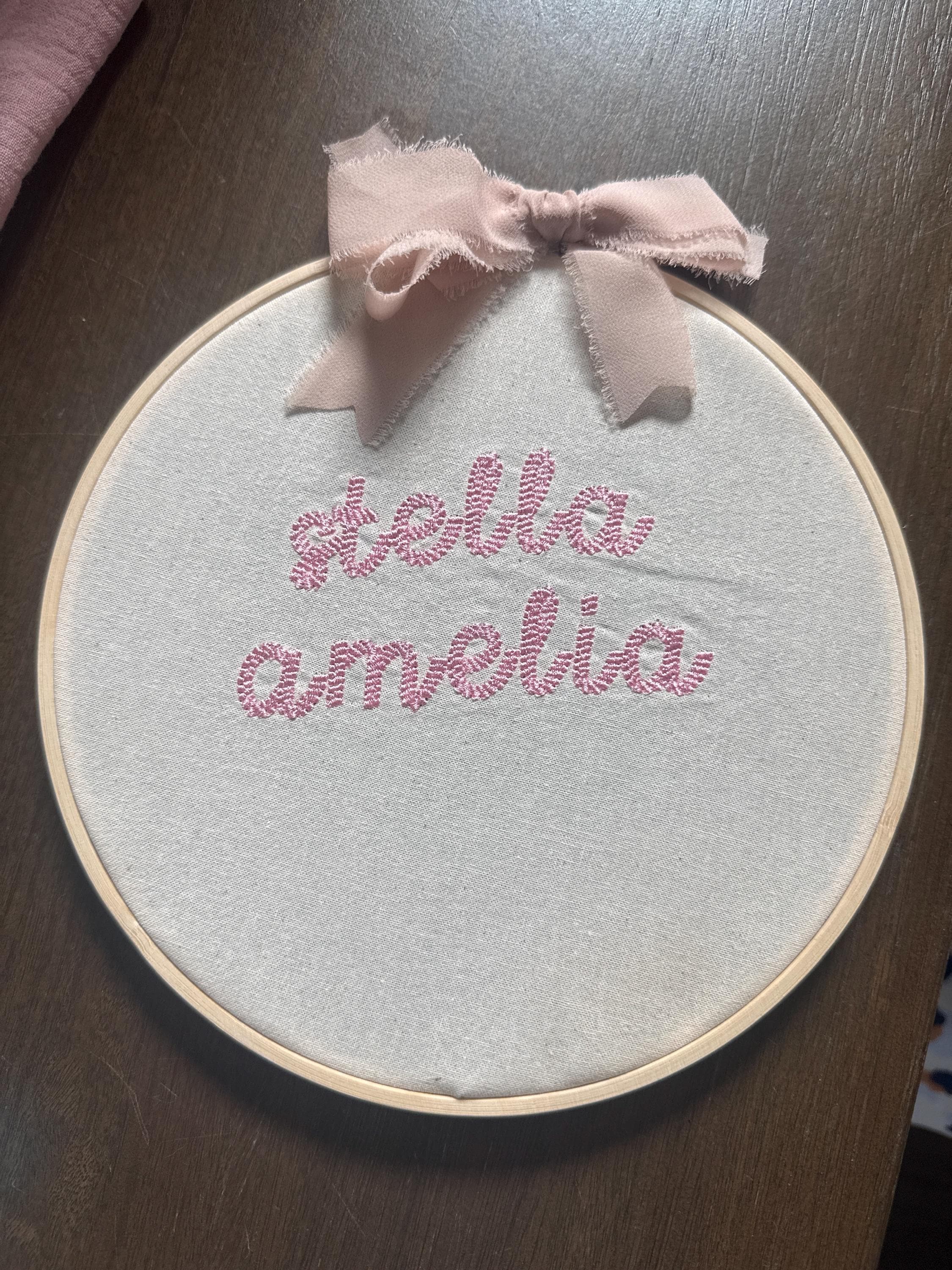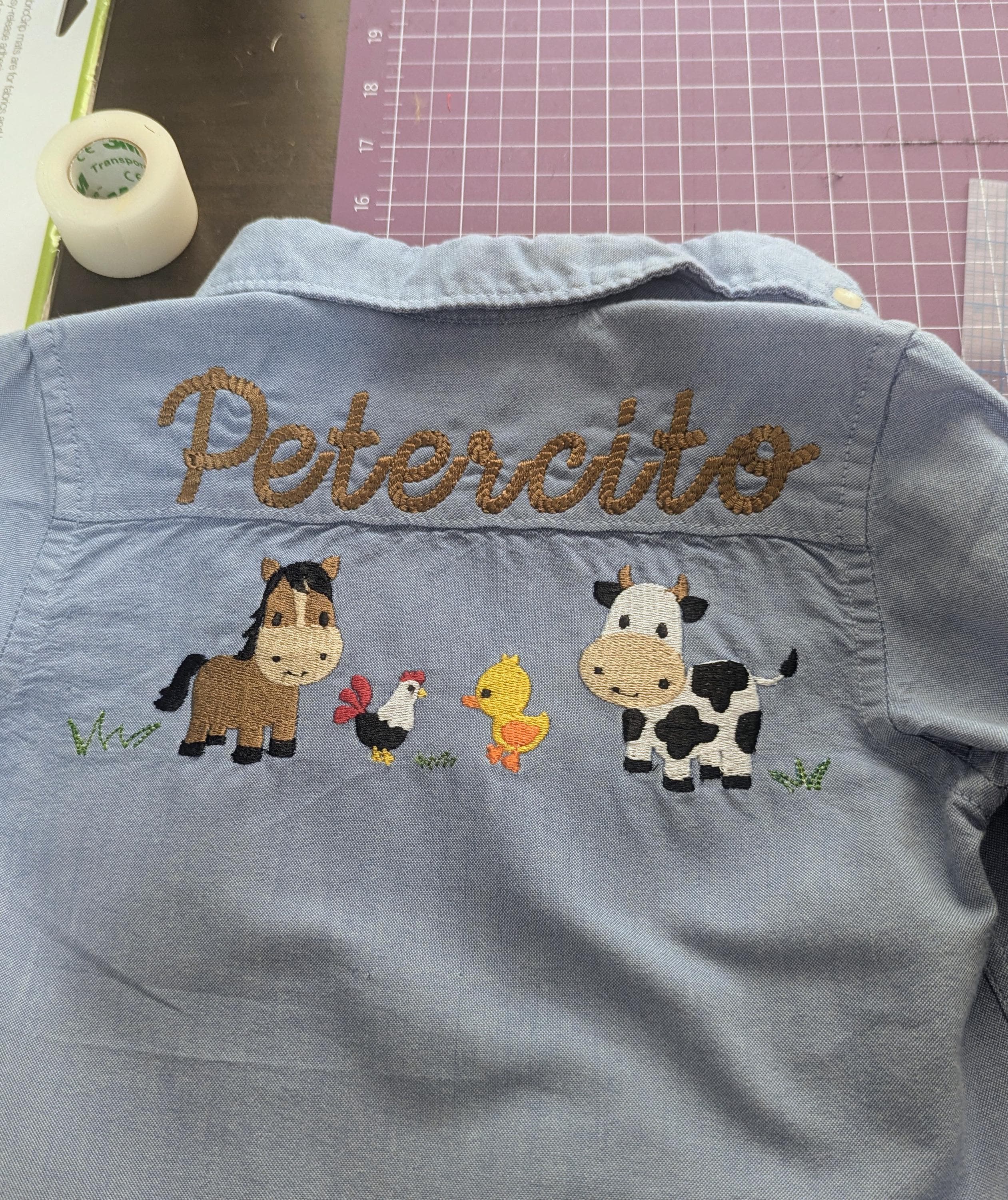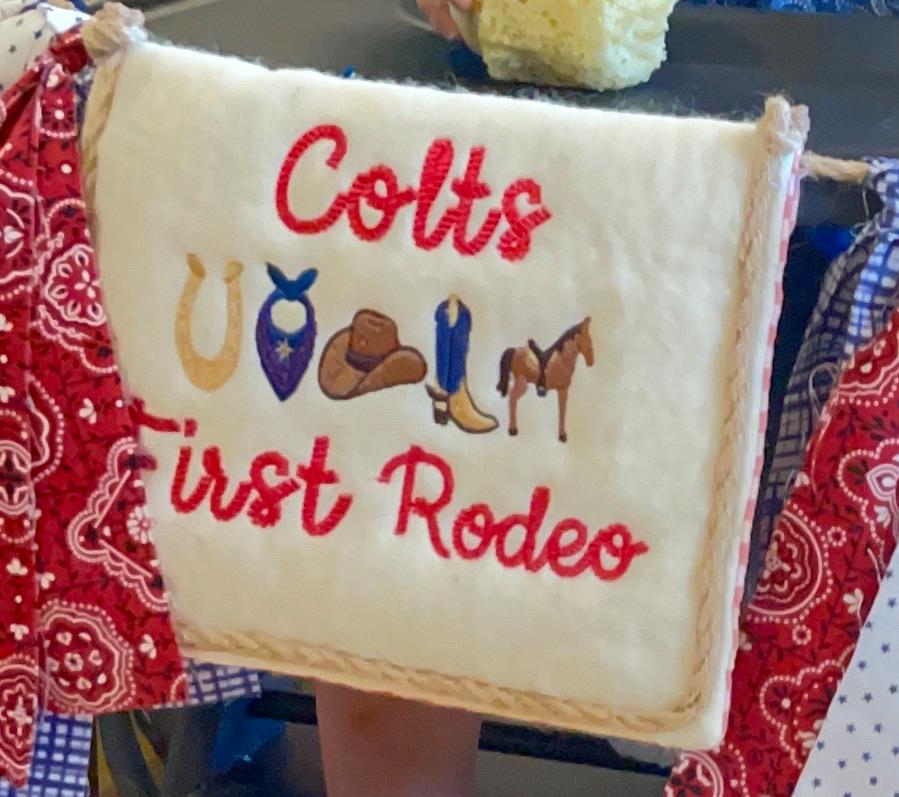
Rope stitch FONT Rodeo Cowboy Alphabet Monogram letters Machine Embroidery Designs handwritten script Font many sizes 1.7 up to 5.4in, BX
Entire alphabet A-Z uppercase and lowercase letters, numbers 0-9, and punctuation.
Love this font and it stitches perfectly